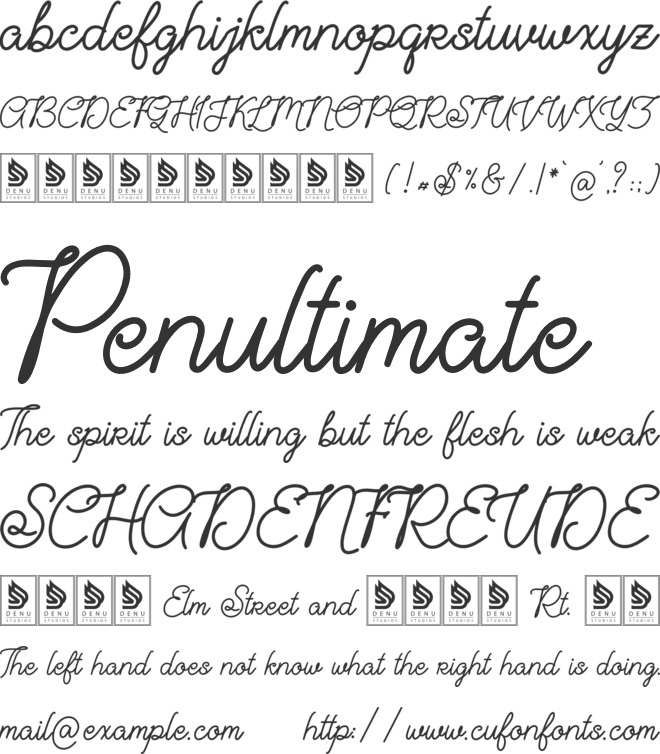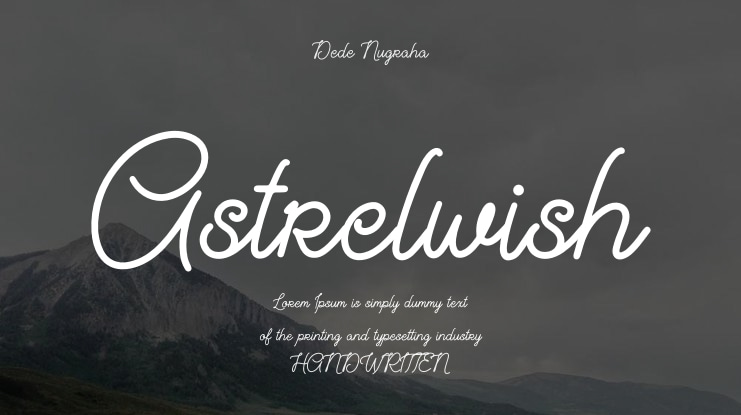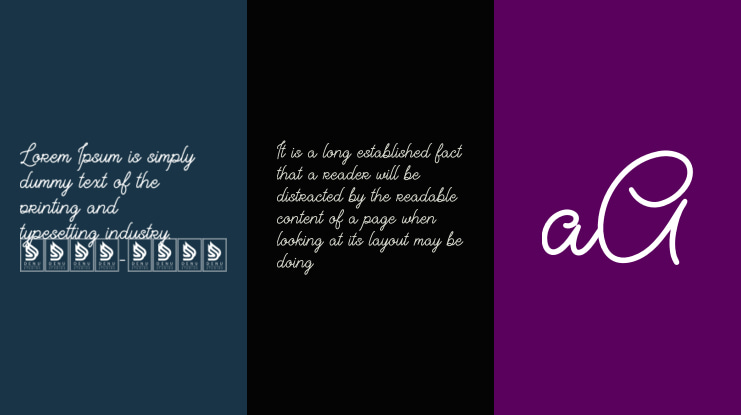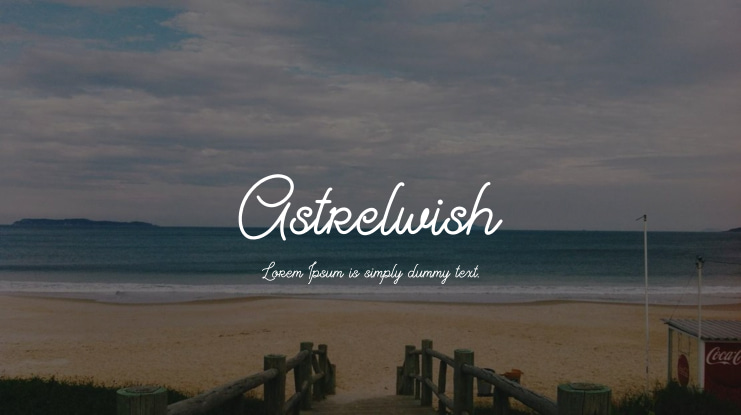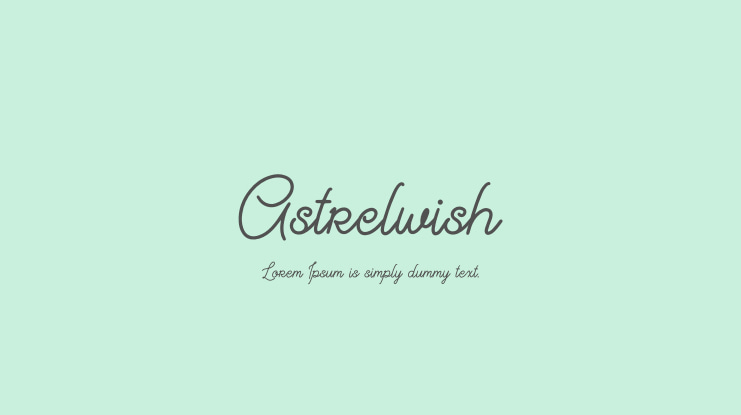
Dede Nugraha
**Astrelwish | Monoline Script**
Astrelwish Monoline Script is ideal for a variety of projects such as:
- Logos - Branding projects - Homeware designs - Product packaging - Mugs - Quotes - Posters - Shopping bags - T-shirts - Book covers - Name cards - Invitation cards - Greeting cards - Labels - Photography - Watermarks - Special events and any other projects that require a Monoline Script touch.